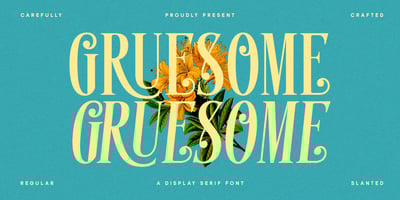
Gruesome Font Family was designed by Hendry Juanda and published by Letterhend. Gruesome contains 2 styles and family package options. Introducing, Gruesome – a display serif font with vintage looks. The stylistic alternates and ligatures make this font event more unique and stands out rather than the regular serif font. This font perfectly made to be applied especially in logo, and the other various formal forms such as invitations, labels, logos, magazines, books, greeting / wedding cards, packaging, fashion, make up, stationery, novels, labels or any type of advertising purpose.Features : Regular & slant style Uppercase & lowercase Numbers and punctuation Alternates & Ligature Multilingual PUA encoded We highly recommend using a program that supports OpenType features and Glyphs panels like many of Adobe apps and Corel Draw, so you can see and access all Glyph variations.